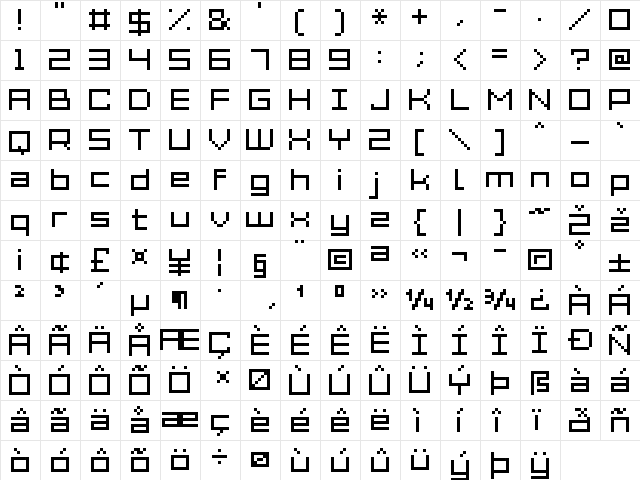
Grixel Acme 7 Wide Regular
Design Context for Grixel Acme 7 Wide Typeface
Grixel Acme 7 Wide offers clean, dependable letterforms without strong stylistic allegiance, making it a practical choice for designers who need flexibility.